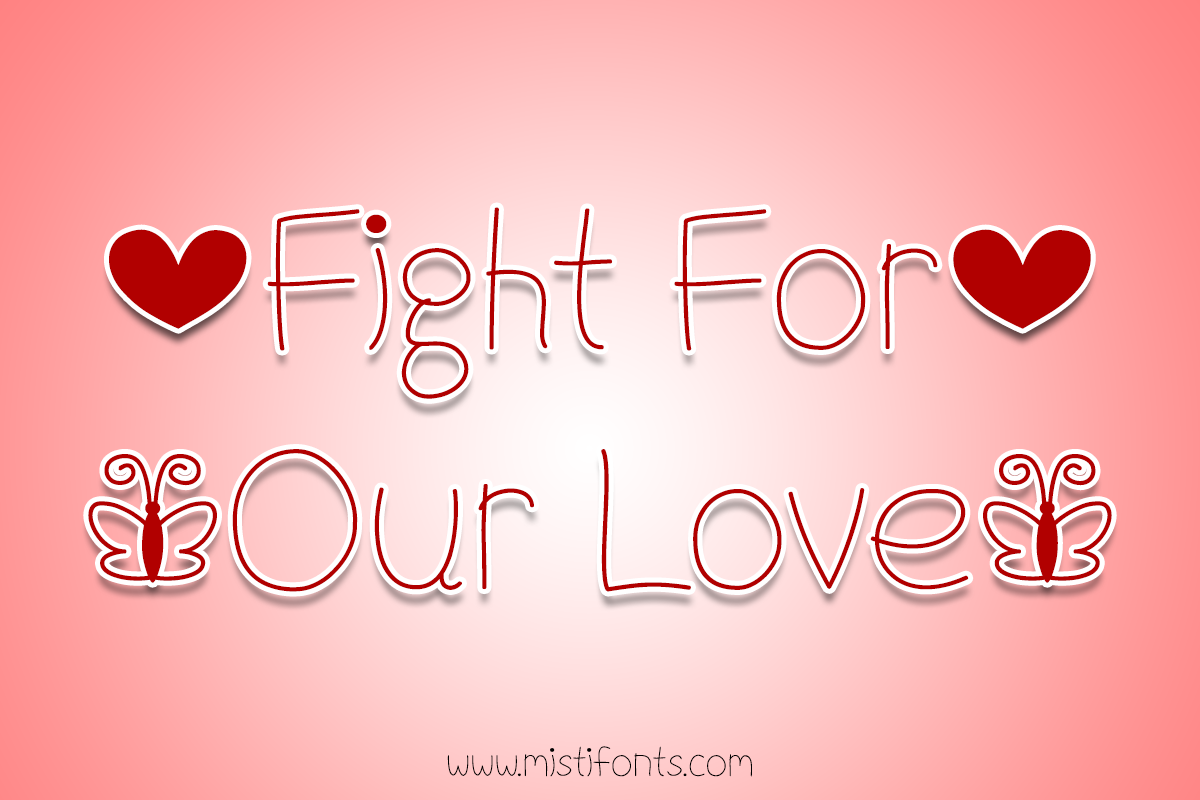
Fight For Our Love
Fight For Our Love is a feminine handwritten font that is perfect for your craft and design projects!
Special Symbols:
Type * (asterisk) for the heart
Type ^  (caret) for the butterfly
Type | (vertical bar) for the heart cluster
Type _ (underscore ) for the special I <3 U character